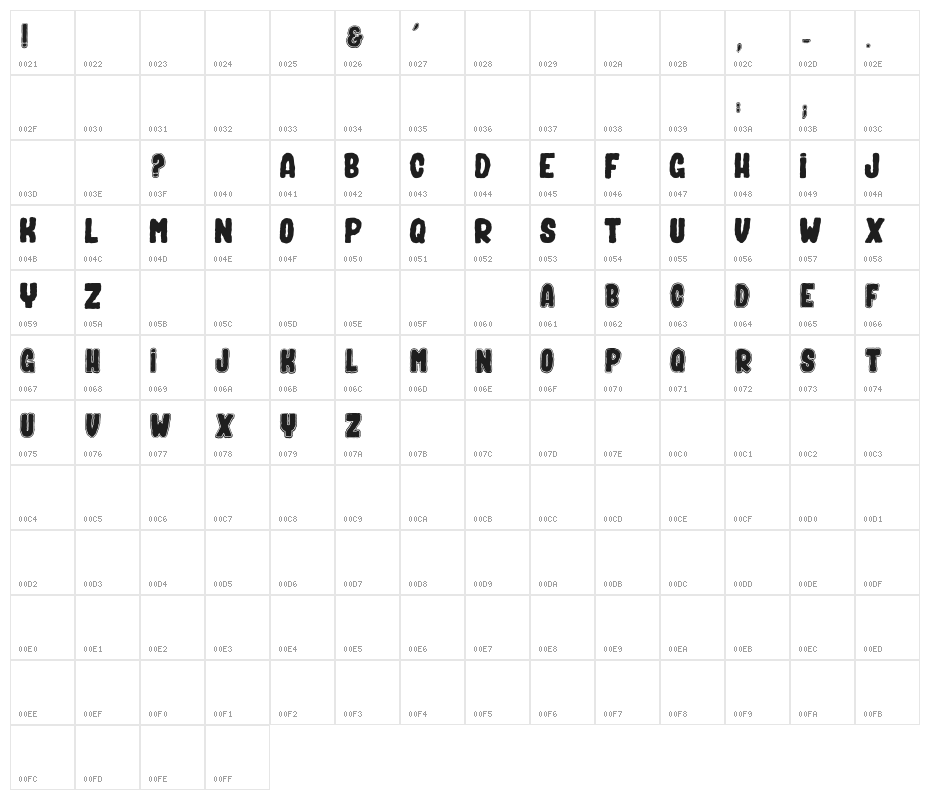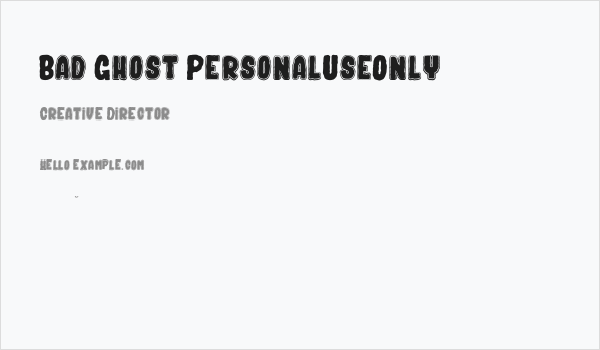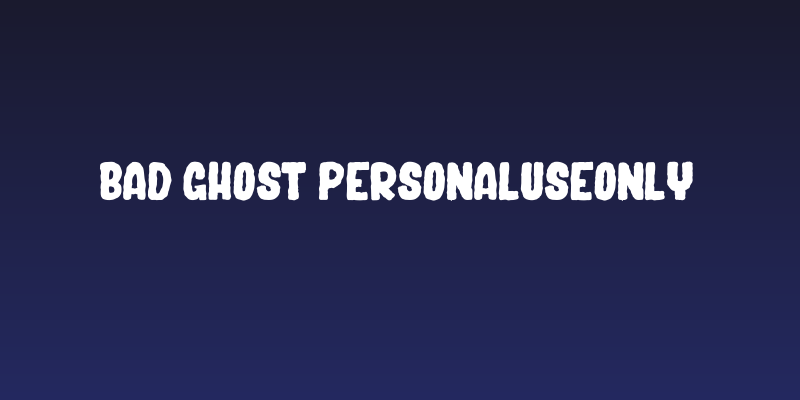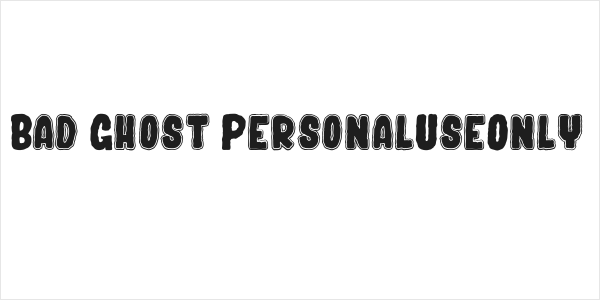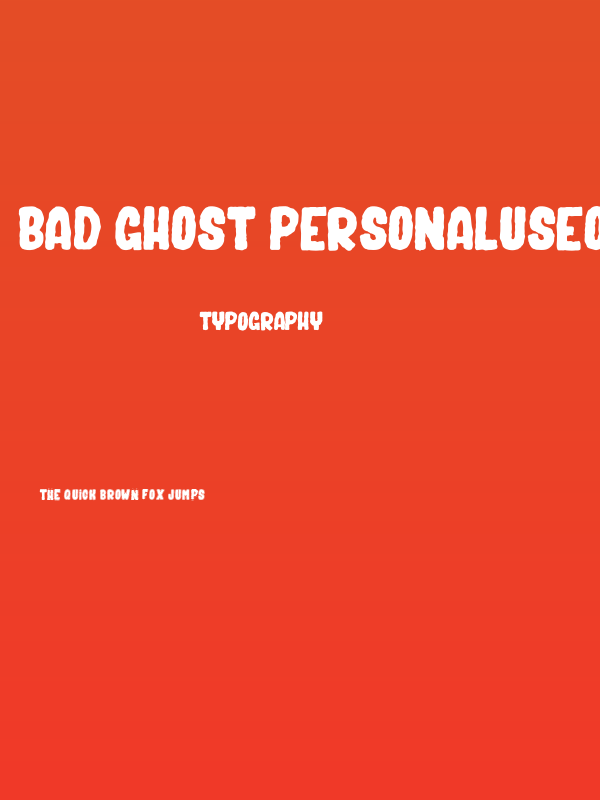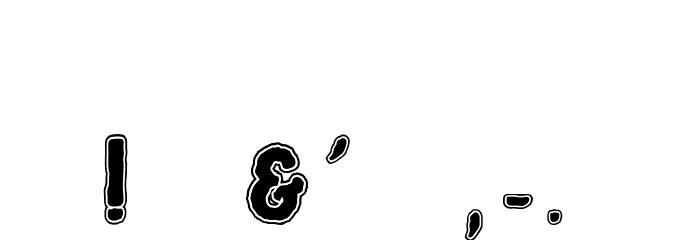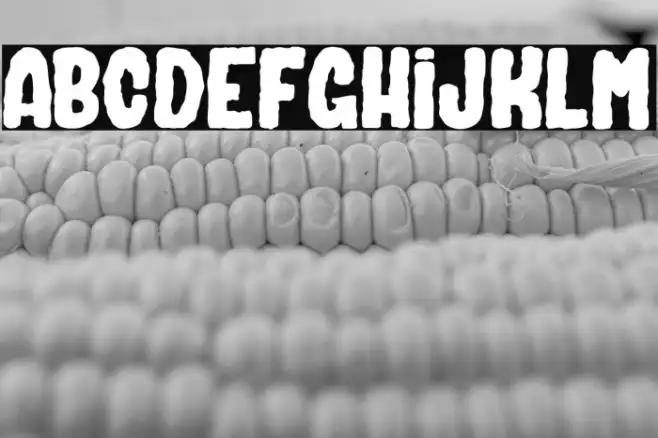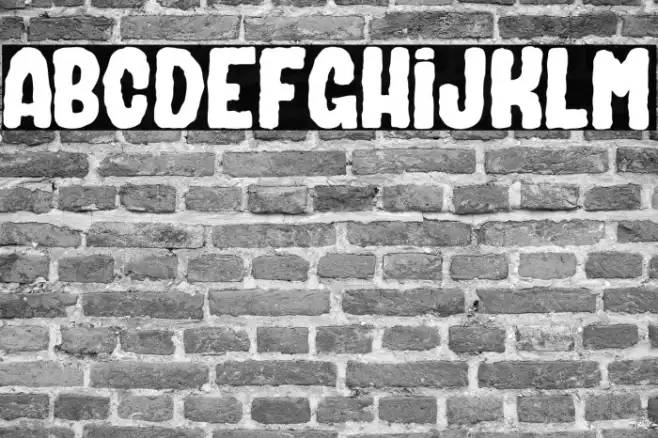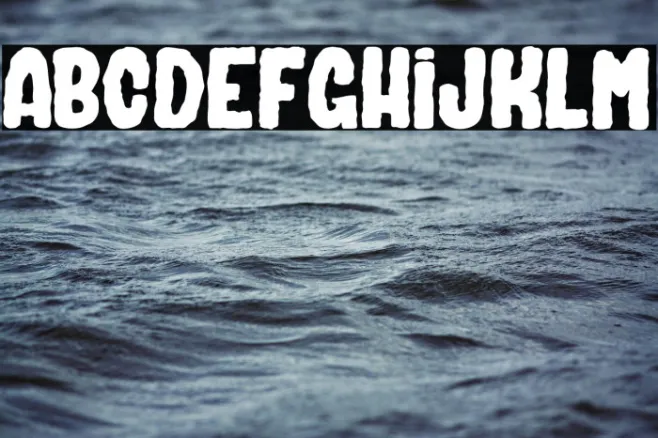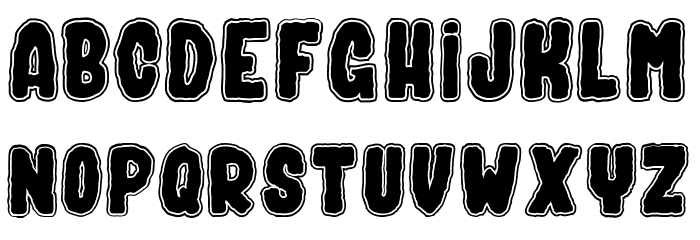
Bad Ghost_PersonalUseOnly Font
Bad Ghost_PersonalUseOnly Description
This font features a bold and playful design, characterized by its thick, uneven strokes and slightly irregular shapes. The letters have a hand-drawn appearance, giving them a whimsical and informal feel. The uppercase and lowercase letters maintain a consistent style, with a slightly rough texture that adds to the font's charm. The numbers and special characters follow the same design principles, ensuring a cohesive look across all glyphs. This font's unique style makes it stand out, perfect for projects that require a fun and engaging typeface.
| Overall Style | Playful, Whimsical, Hand-drawn |